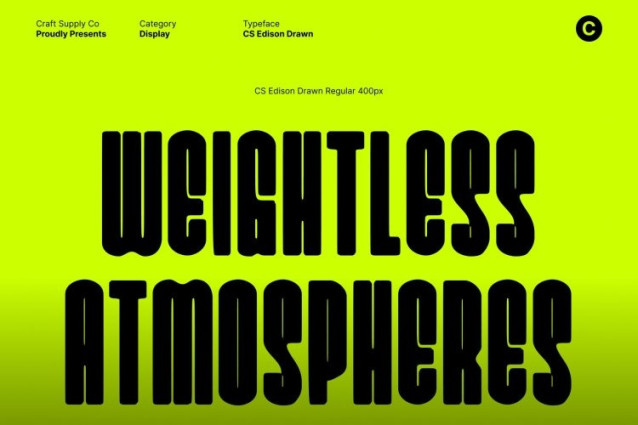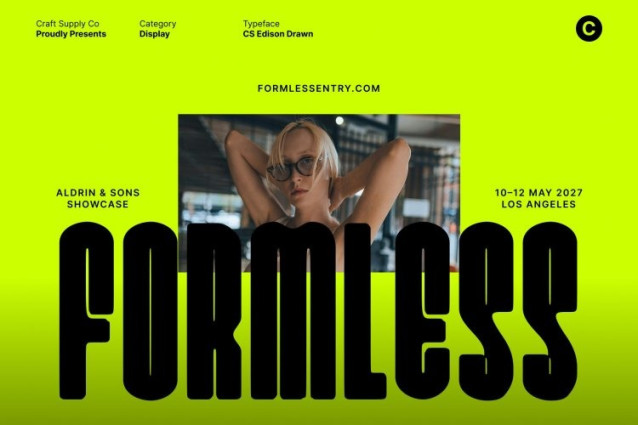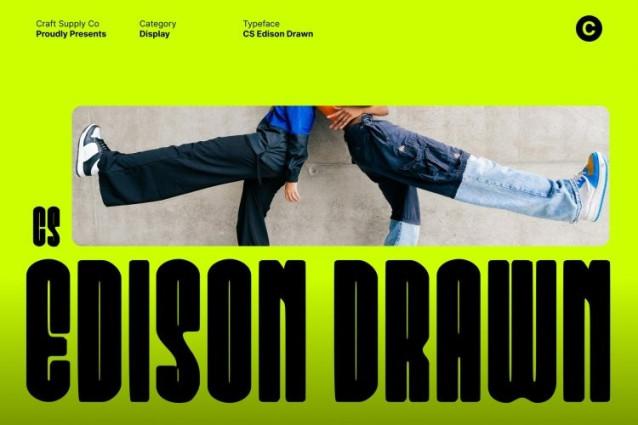
CS Edison Drawn Font
CS Edison Drawn Font – This is a condensed sans serif font built for strength, clarity, and efficiency. Its compact proportions allow text to make a powerful statement even in tight spaces, making it highly effective for bold headlines and space-conscious layouts. The clean, modern construction keeps the letterforms clear and legible, while the narrow width adds intensity and visual punch to every line of text.
Bold Forms that Balance Readability and Presence
With solid strokes and confident shapes, strikes a balance between boldness and readability. Each character is designed to remain clear at various sizes, ensuring strong visual communication without sacrificing clarity. This makes the font especially versatile for posters, branding systems, editorial headlines, and graphic layouts that require impact without overcrowding the design.
Hand-Drawn Effect for Artistic Texture
The drawn effect introduces subtle texture and organic irregularities, giving the font an artistic, handmade feel. This texture softens the strict geometric structure, adding warmth, personality, and visual depth. The result is a modern sans serif that feels expressive and human while still maintaining its strong, industrial edge.
Ideal for Headlines, Posters, and Branding
This is perfect for headlines, posters, logos, packaging, and branding projects that need a bold yet artistic voice. Its compact form, modern strength, and textured finish make it a reliable choice for designs that aim to stand out with confidence and character.